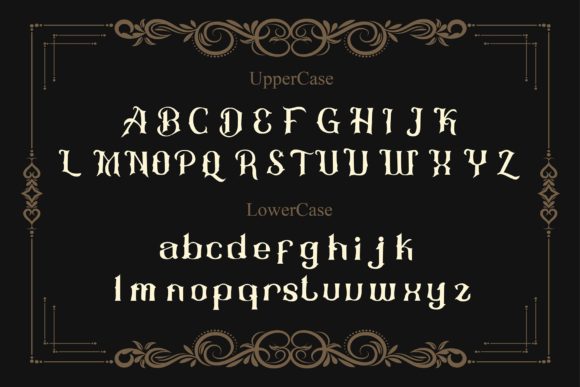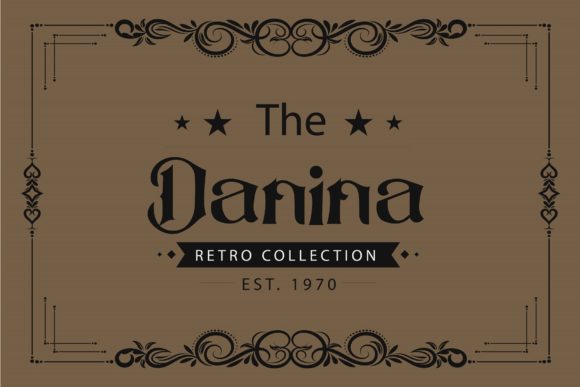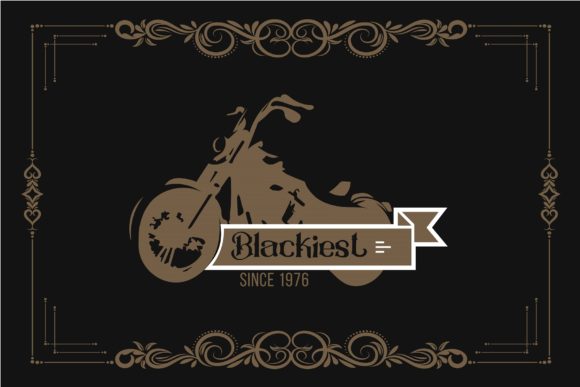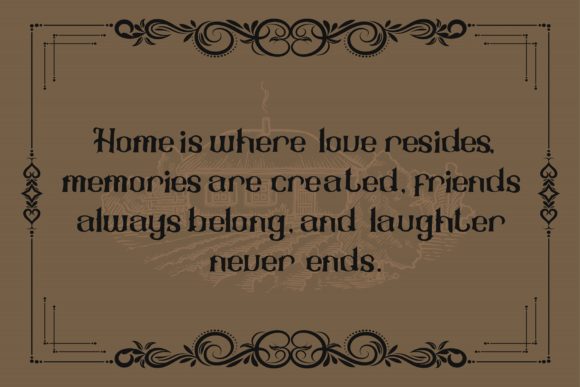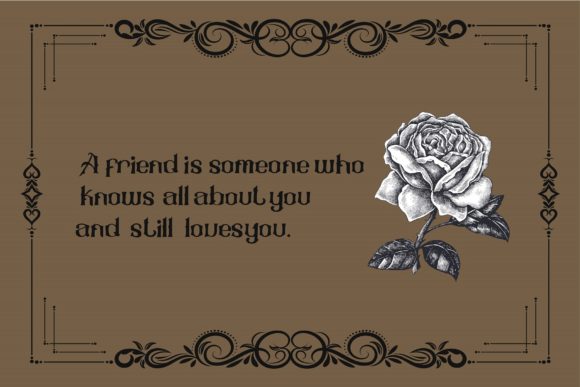
Introduction to Bulgani Font
Remember that moment when you’re working on a creative project, and you stumble upon the perfect font to elevate your design? For many designers, it’s like finding a missing puzzle piece that brings everything together. For me, it was the Bulgani Font. This classic blackletter font has been a game-changer in my design process, and I’m excited to share its awesomeness with you.
About Bulgani Font
The Bulgani Font is more than just a pretty face; it’s a high-quality design resource that can add a touch of elegance and sophistication to any project. With its bold, intricate lines, it’s perfect for making original and outstanding designs that stand out from the crowd. Plus, its transparent background makes it easy to customize and layer with other design elements.
Why Bulgani Font is a Must-Have for Designers
Whether you’re a seasoned pro or just starting out, the Bulgani Font is an invaluable addition to your design toolkit. And the best part? It’s available for free download, making it an accessible resource for designers of all levels. With its versatility and high-quality design, it’s no wonder the Bulgani Font has become a go-to choice for creatives everywhere.
Key Features of Bulgani Font
- High-quality design resource with a unique, elegant style perfect for creative projects
Honest Review: Bulgani Font
As a designer, I’m always on the lookout for high-quality fonts to elevate my creative projects. The Bulgani Font is one such find, and I’m excited to share my thoughts on it.
- ✨ Beautifully crafted letters with a unique, modern aesthetic
- ⚠️ The font may not be suitable for projects with transparent backgrounds, as the bold lines can sometimes show through
- ⚠️ Some users may find the font’s unusual shape and style jarring
Overall, I’m impressed with the Bulgani Font. Its unique design and high-quality craftsmanship make it a valuable addition to any designer’s toolkit. While it may not be perfect for every project, I think it’s a great choice for anyone looking to add a touch of modern flair to their creative work.
For the most out of Bulgani Font, use it in a design project where you want to create a unique and eye-catching visual effect. Some common use cases include creating a logo, designing a brochure, or making a presentation. Additionally, use the font in conjunction with a high-quality image or background to create a cohesive and professional design.